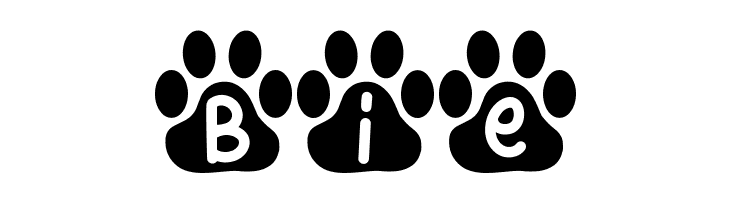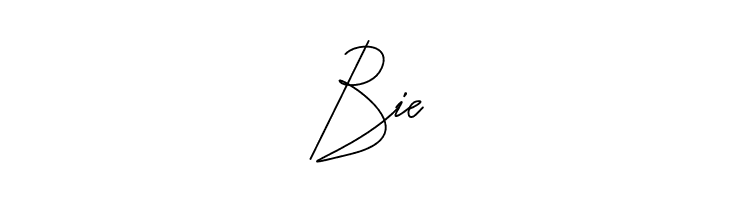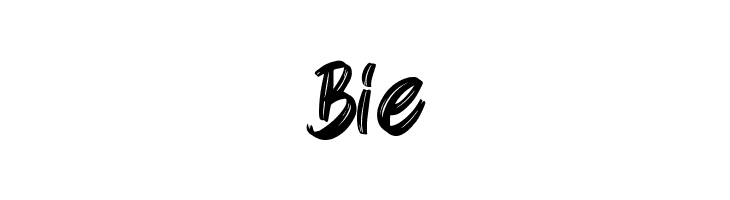
A lively and expressive script font with fluid, connected letterforms.
A bold, dynamic handwritten font with energetic brush-like strokes.
A flowing, elegant script font with a handwritten, artistic style.
A playful and elegant handwritten script font with dynamic strokes.
Playful handwritten font with a casual style.
A playful and elegant script font with fluid, cursive strokes.
A playful font with letters inside paw prints, perfect for fun and friendly designs.
A bold, playful, hand-drawn font with a casual and artistic feel.
A bold, playful, hand-drawn font with a casual and artistic style.
A bold, flowing script font with a modern and elegant style.